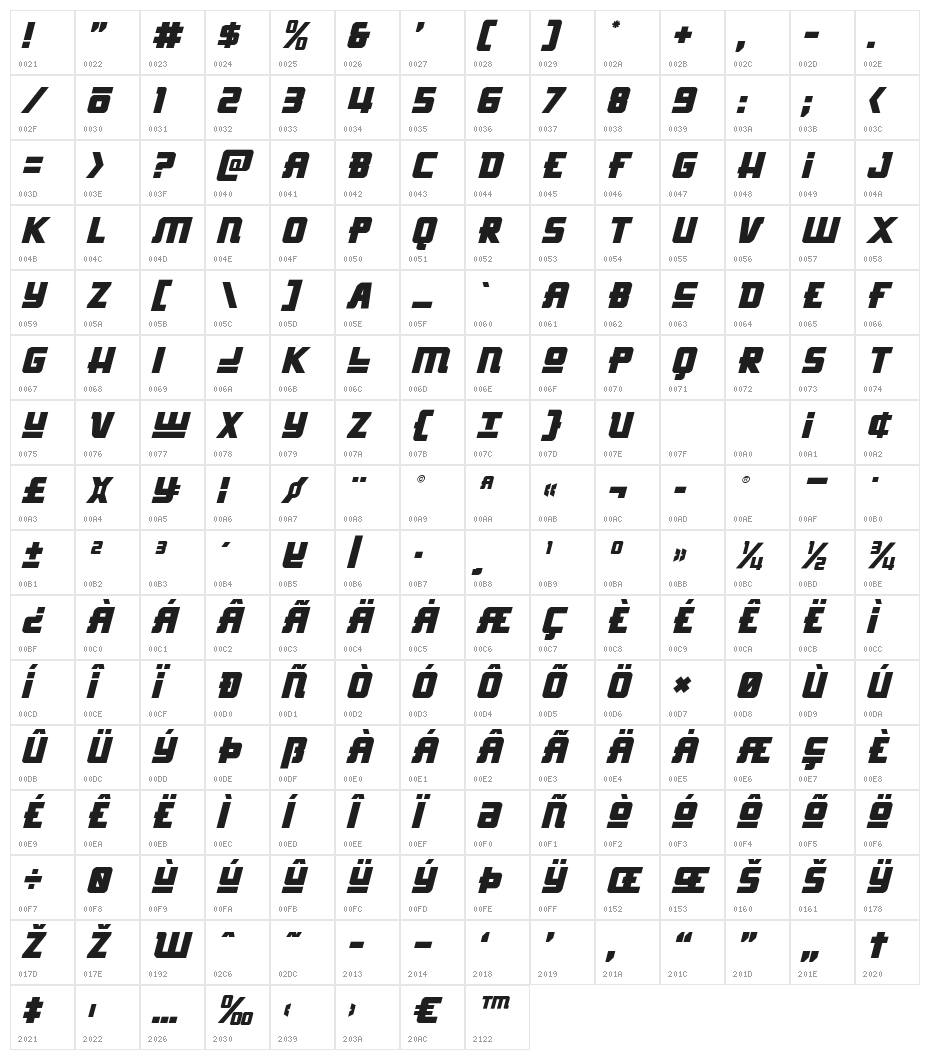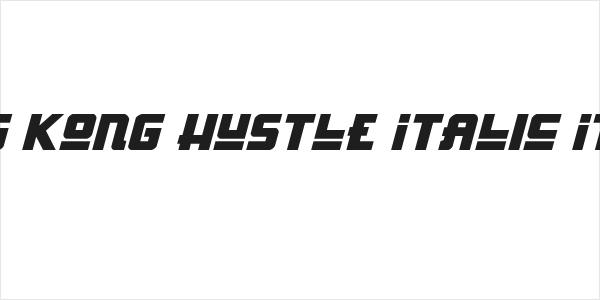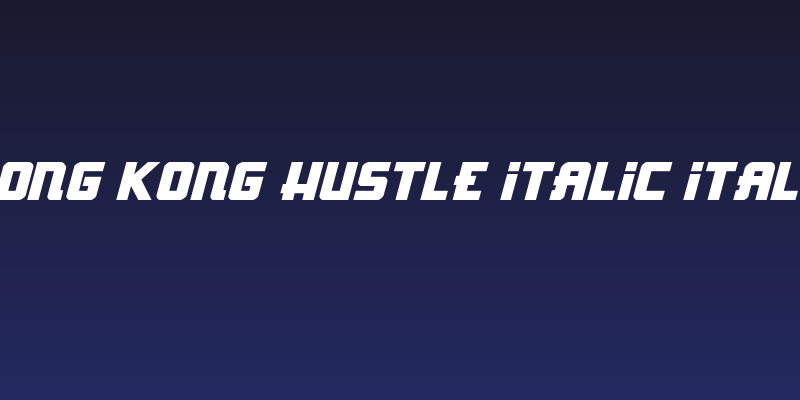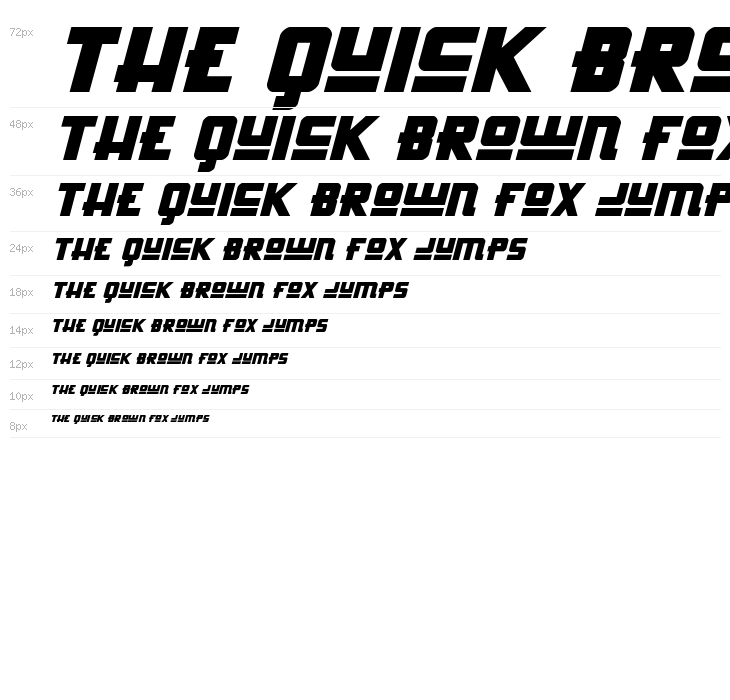
Hong Kong Hustle Italic Italic Font
Hong Kong Hustle Italic Italic Description
This font features a bold and dynamic style with a strong italic slant, giving it a sense of motion and energy. The characters are blocky and geometric, with sharp angles and a consistent stroke width that conveys a modern and futuristic aesthetic. The uppercase letters are particularly striking, with unique cuts and angles that add to the font's distinctive look. The numerals and special characters maintain the same bold and angular design, ensuring consistency across all text. This font is perfect for projects that require a bold statement and a modern edge.
| Proposed Projects | Ideal for branding, sports team logos, video game titles, and dynamic posters. |